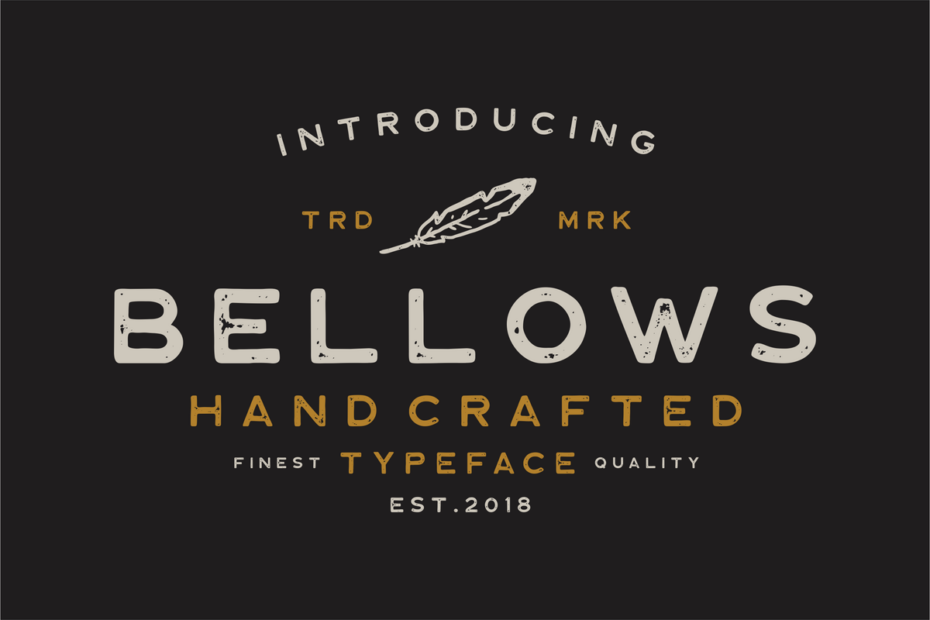
Unleash Your Creative Potential with the Bellows Font
There’s something magical about the first spark of inspiration that sets your creative juices flowing. You’re sitting at your desk, staring blankly at a blank page or screen, when suddenly a brilliant idea hits you. It’s like a rush of adrenaline, and you can’t wait to bring your vision to life. For designers, this moment is what it’s all about – the thrill of creating something new and beautiful.
That’s where the Bellows Font comes in – a stunning all caps typeface with a subtle vintage style that’s perfect for adding a touch of elegance to your projects. Handcrafted with love and care, this font is available in two styles, giving you the freedom to experiment and push the boundaries of your creativity. Whether you’re working on a branding project, designing a website, or creating a stunning print piece, the Bellows Font is an invaluable addition to your toolkit.
Bellows Font Key Features
- Unique Characteristics: The Bellows font features a unique, hand-drawn design with a distressed, vintage look
Bellows Font Review
As a designer, I’ve had the chance to work with many fonts, and Bellows is one that stands out. ✨ The unique blend of geometric and organic elements creates a distinctive visual identity that’s perfect for projects where you want to make a statement.
Here are some aspects that work well:
- Unique design: Bellows has a one-of-a-kind style that sets it apart from more generic fonts.
- Legibility: Despite its unconventional design, Bellows is surprisingly readable, making it suitable for body text and titles.
- Expressiveness: The font’s organic feel lends itself well to conveying emotions and adding personality to your designs.
- Limited font sizes: Bellows may not scale well to very large or very small font sizes, which can affect its overall legibility.
- Overuse: The font’s bold, eye-catching design may become overwhelming if used too extensively in a design.
Overall, Bellows is a great choice for designers looking to add some visual interest to their projects. While it may have some limitations, its unique design and expressiveness make it a valuable addition to any font collection.
Getting the Most Out of Bellows Font
To get the most out of the Bellows Font, use it in conjunction with bold or italic text to create emphasis. You can also use it in headings and titles to add a touch of elegance.
The Bellows Font is commonly used in:
- Book covers and book titles
- Magazine and newspaper headlines
Alternatives to Bellows Font for Designers
Great Vibes is a beautiful, elegant script font perfect for creating a sophisticated and luxurious feel in your designs. It’s ideal for use in titles, headings, and other prominent text elements where you want to convey a sense of refinement and style.
Compared to Bellows Font, Great Vibes has a more refined and polished appearance, making it a great choice for high-end branding and marketing materials. While Bellows Font has a more rustic and vintage feel, Great Vibes is better suited for modern and sleek designs.
Carolyna Pro is a stylish and versatile script font that works well in a variety of design contexts. It’s perfect for creating eye-catching titles, headings, and other text elements that need to stand out from the crowd.
Compared to Bellows Font, Carolyna Pro has a more dynamic and energetic feel, making it a great choice for creative and expressive designs. While Bellows Font has a more understated and vintage feel, Carolyna Pro is better suited for bold and attention-grabbing designs.
Alex Brush is a beautiful and elegant script font that’s perfect for creating a sense of warmth and personality in your designs. It’s ideal for use in titles, headings, and other prominent text elements where you want to convey a sense of approachability and friendliness.
Compared to Bellows Font, Alex Brush has a more organic and hand-drawn feel, making it a great choice for designs that need to feel more